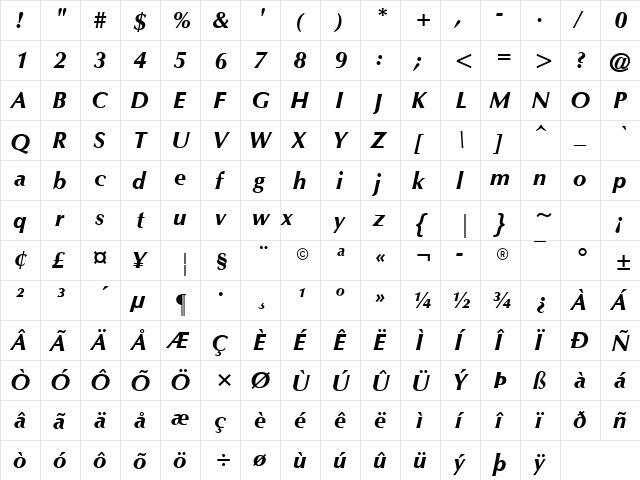
Omichron Bold Italic Regular
Design Context for Omichron Bold Italic Typeface
Omichron Bold Italic offers clean, dependable letterforms without strong stylistic allegiance, making it a practical choice for designers who need flexibility. The slanted form adds forward momentum and visual energy. The heavy weight commands attention and anchors typographic hierarchies.